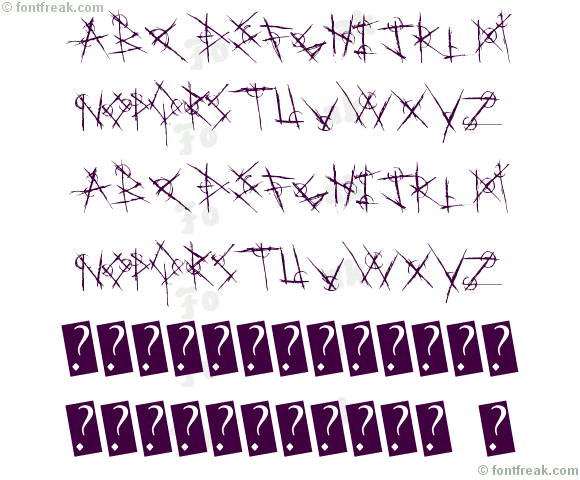
MetalChakra
About MetalChakra
MetalChakra by XEROGRAPHER FONTS is a striking display typeface that embodies a futuristic and edgy aesthetic. This font stands out with its unique, angular design, characterized by sharp, irregular strokes that create a sense of movement and dynamism. The overall visual style is reminiscent of industrial motifs, making it an excellent choice for projects that require a modern and bold statement. The stroke weight varies throughout the characters, adding a level of contrast that enhances its visual appeal. The spacing is intentionally irregular, contributing to a chaotic and energetic feel that captures attention.
Best suited for use in high-impact applications, MetalChakra is ideal for movie posters that aim to convey a sense of excitement and intrigue. Its distinctive look also works well for album covers, particularly in the rock and electronic genres, where it can reflect the music's intensity. Additionally, it can be effectively utilized in promotional materials for tech products, bringing a contemporary edge to branding efforts. Graphic designers and content creators will find this font particularly useful for creating eye-catching social media graphics, ensuring their content stands out in a crowded digital landscape.